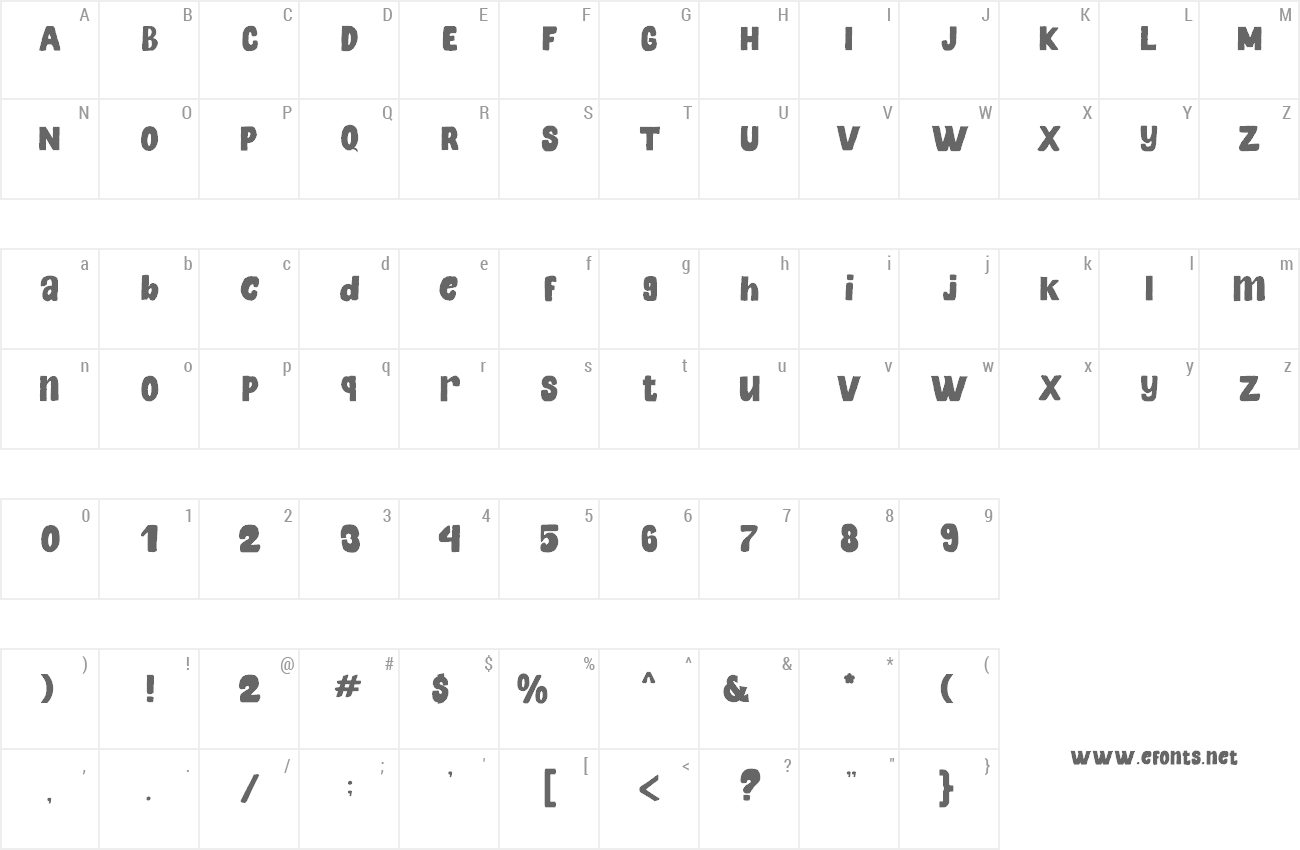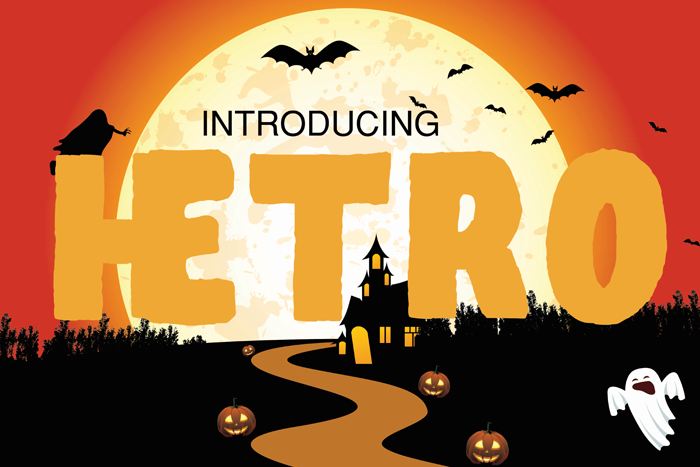
Preview and download Hetro Font. Created by Suamzu Art in Fancy Cartoon styles with Free for personal use license.
HETRO is the one-and-only handwritten font for any Halloween crafting ideas. It�s spooky, scary and weird, and will turn any design project into a true standout! Please contact me before commercial use. My font for free use is only allowed in private, non-profit projects. If you make money from using my font, please buy a commercial license. email: suamzu.art@gmail.com For a company license, contact me via email Contact me: https://www.creativefabrica.com/designer/suamzu-art And follow my Instagram for updates: @suamzuart And follow my Behance for updates: https://www.behance.net/suamzuart If you want to DONATE click here http://www.paypal.me/amrullah03 I really appreciate your contribution. Best regard Amrullah |